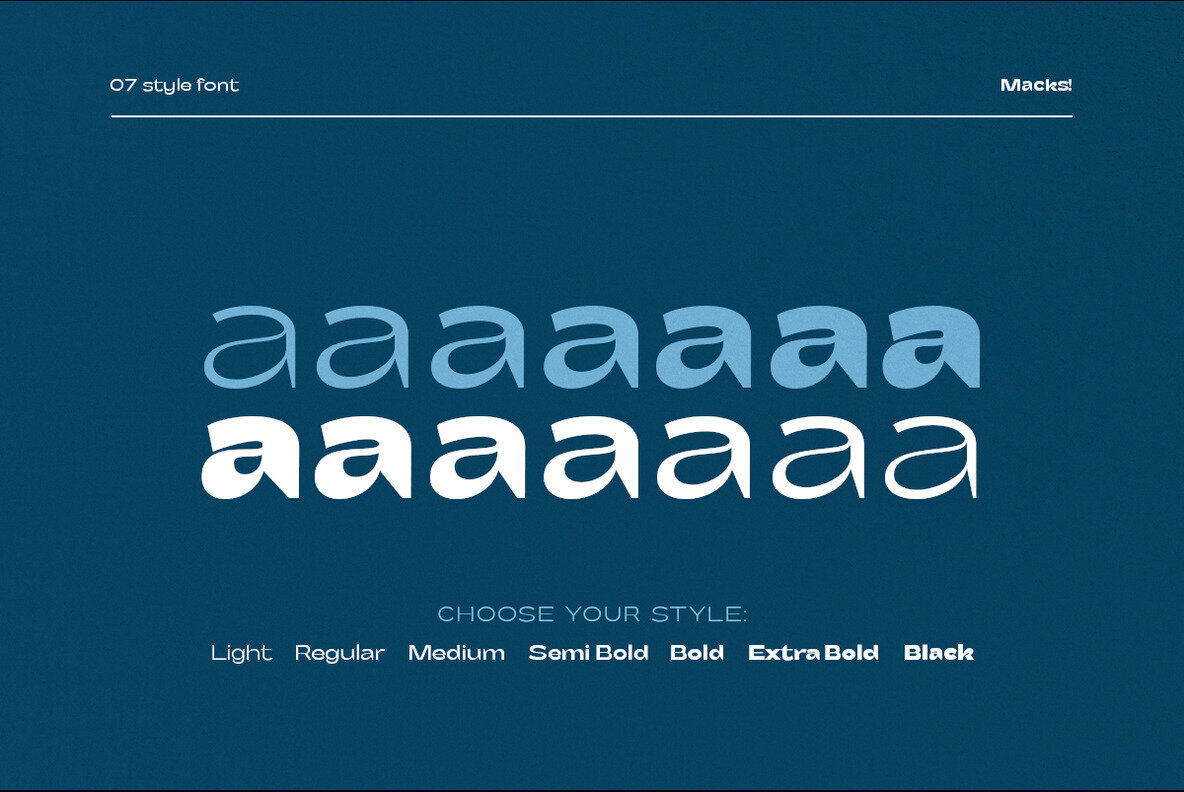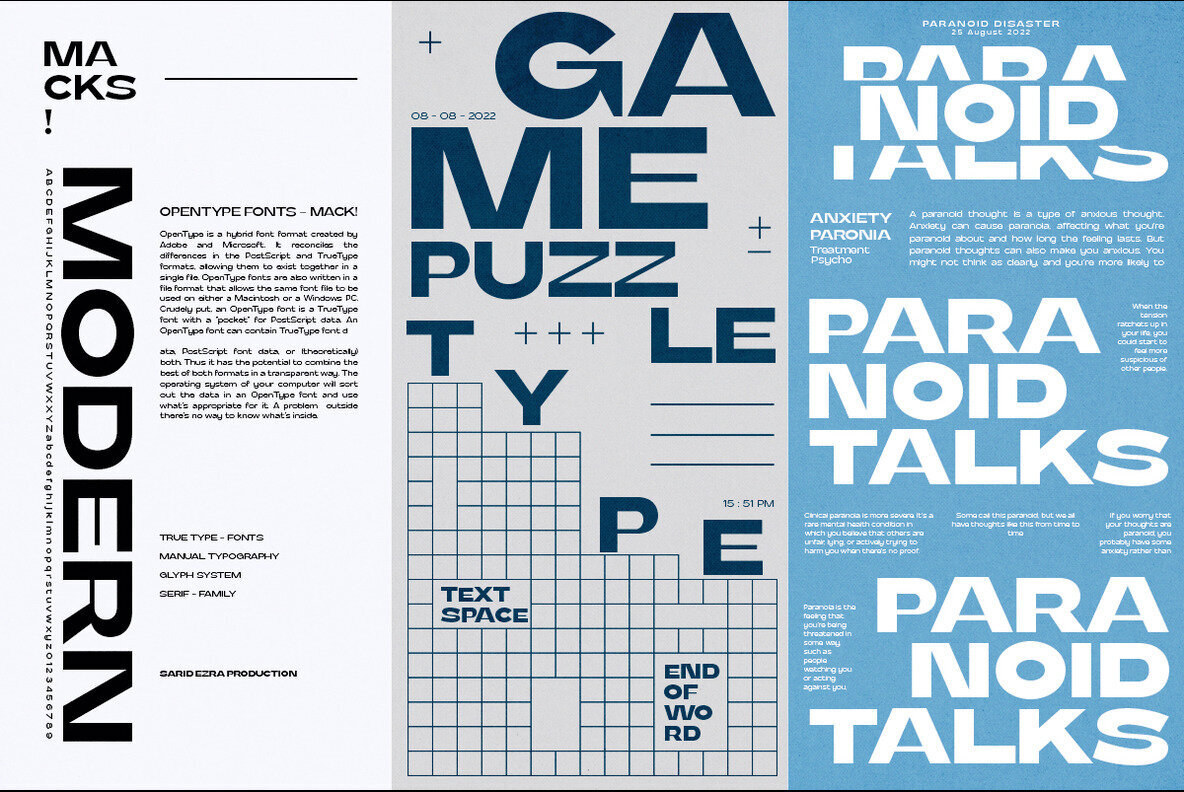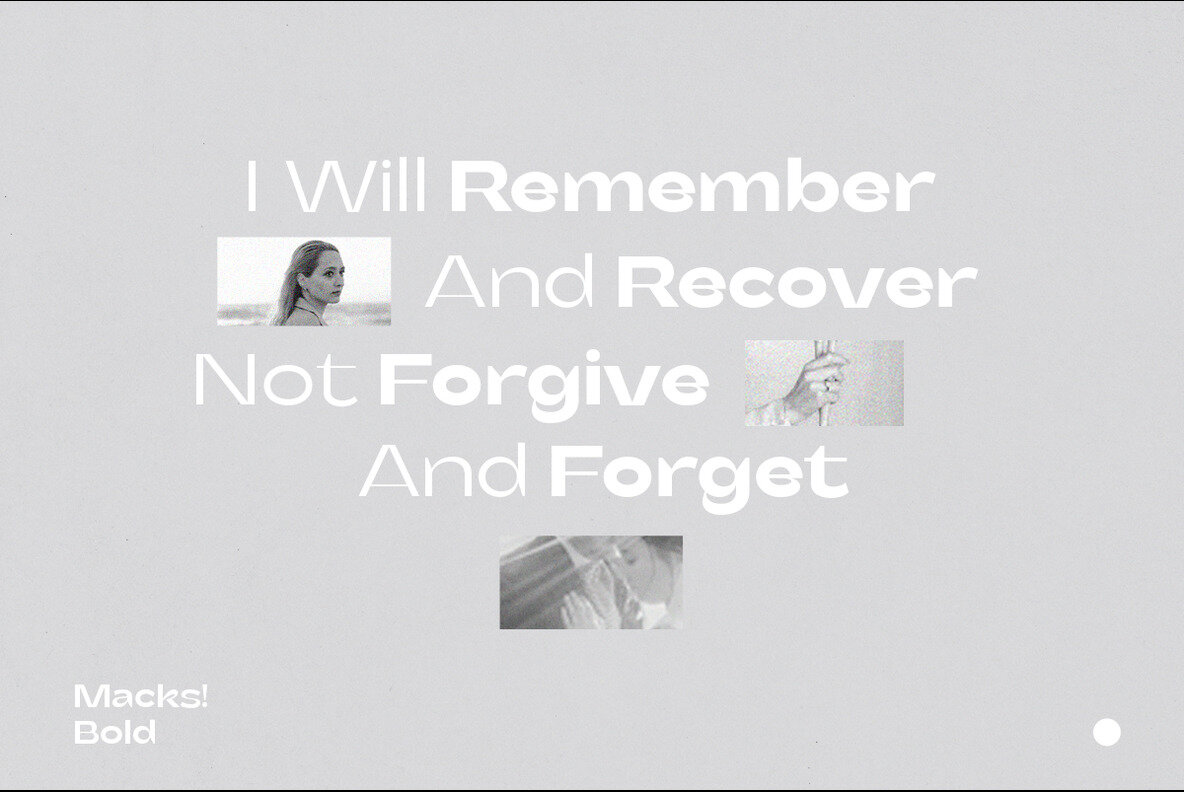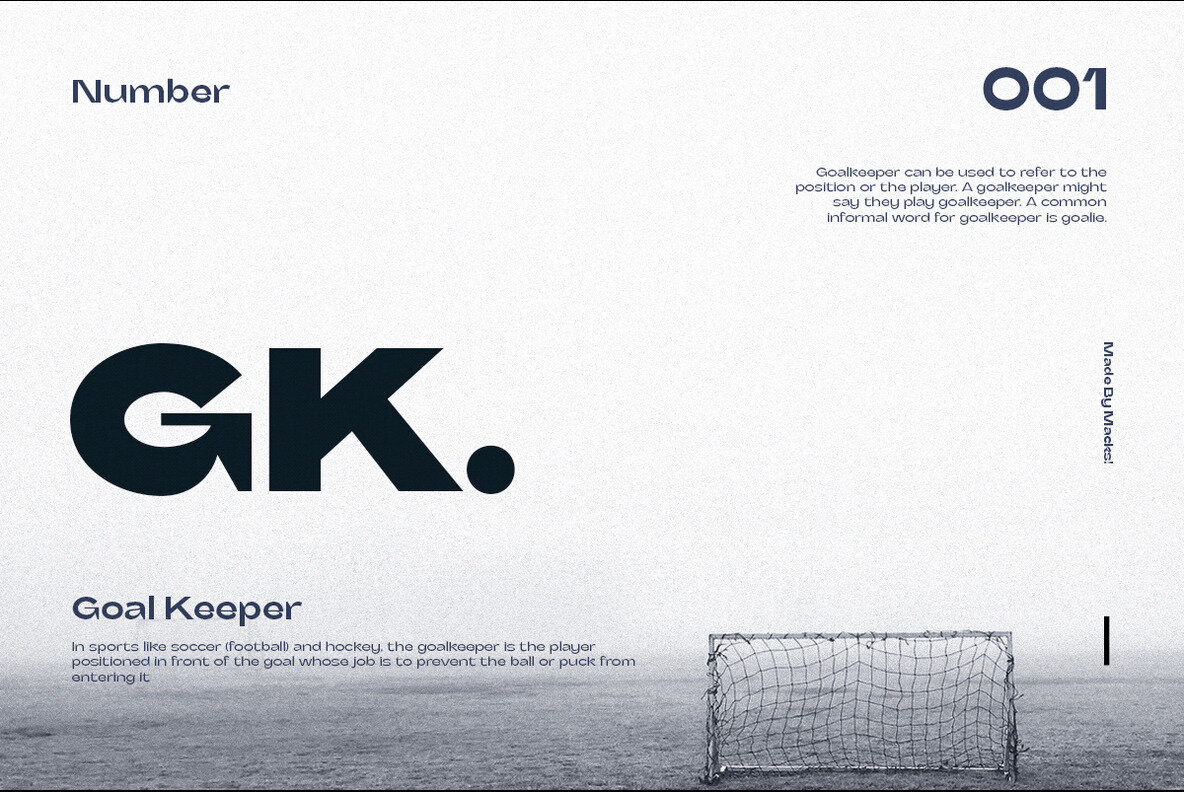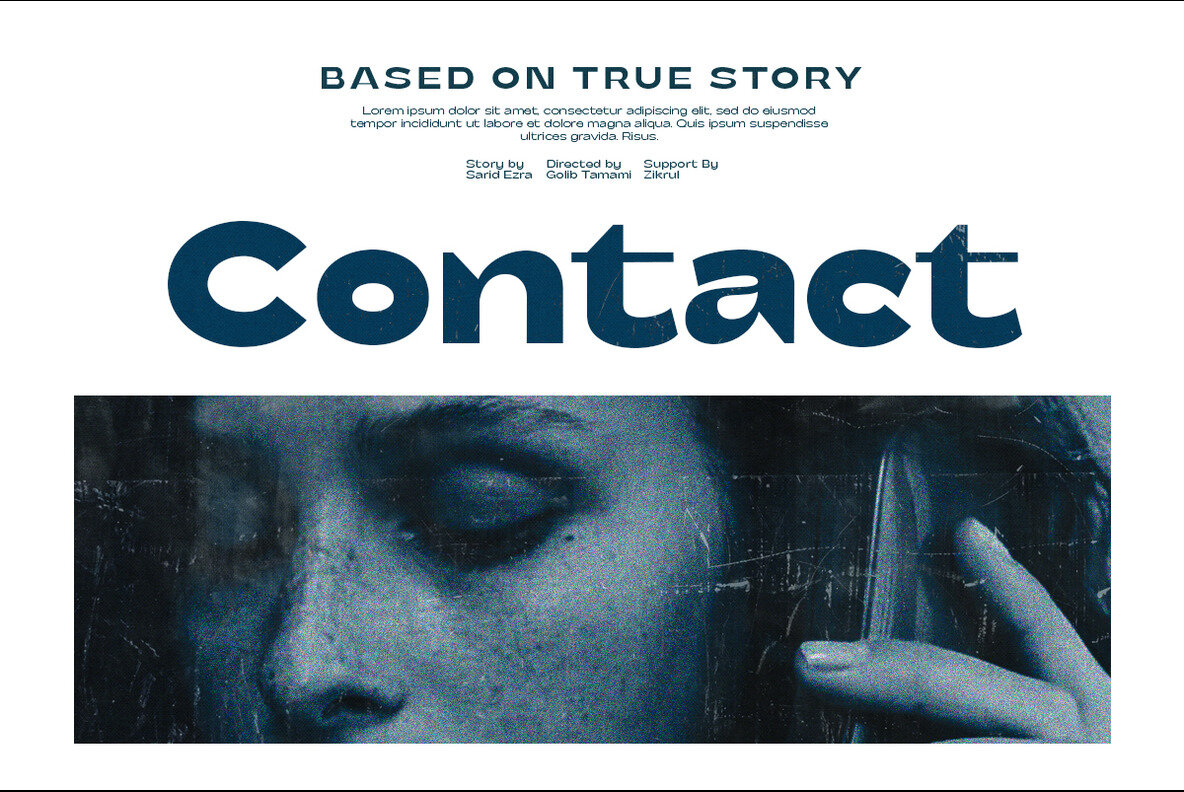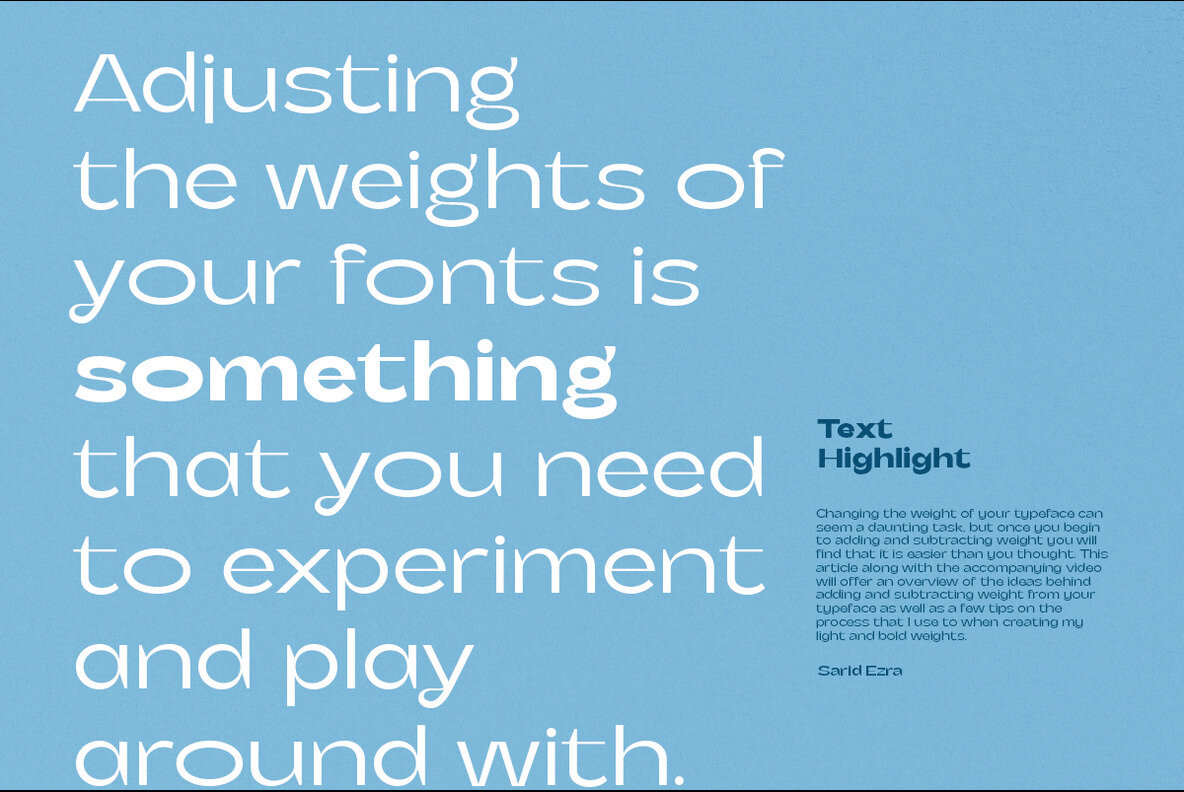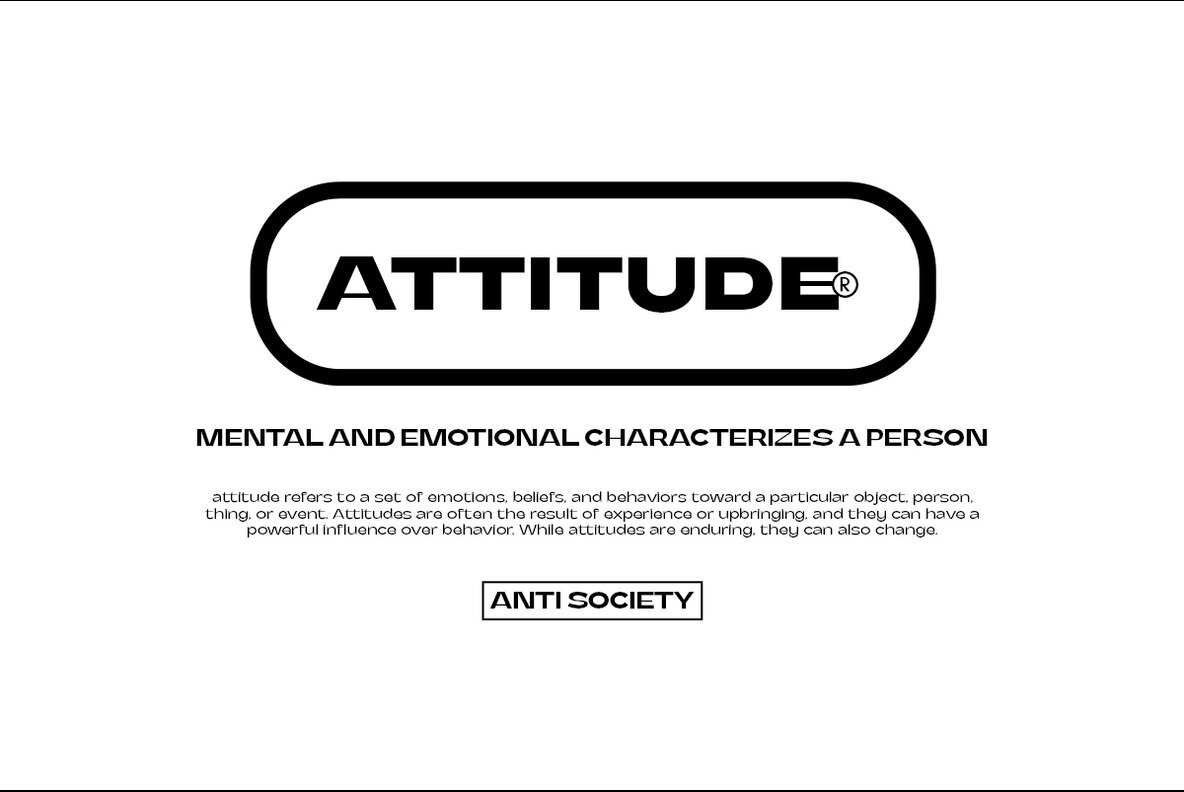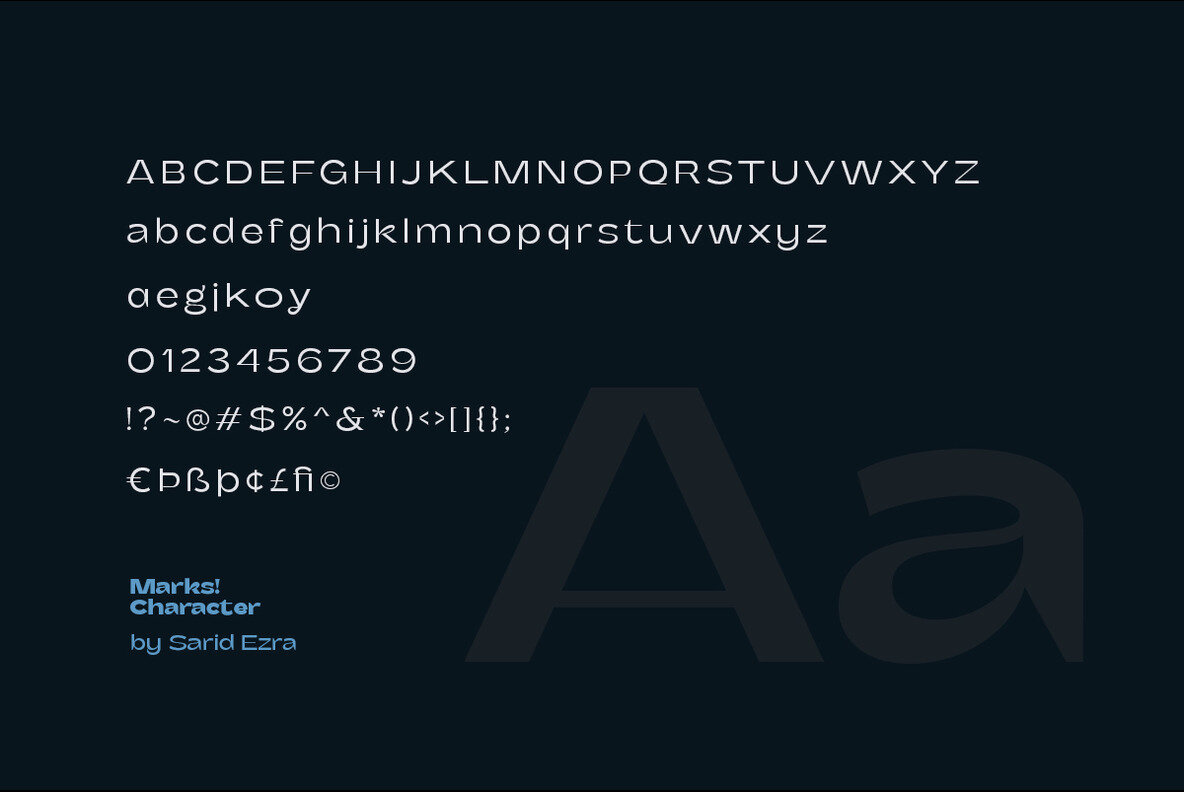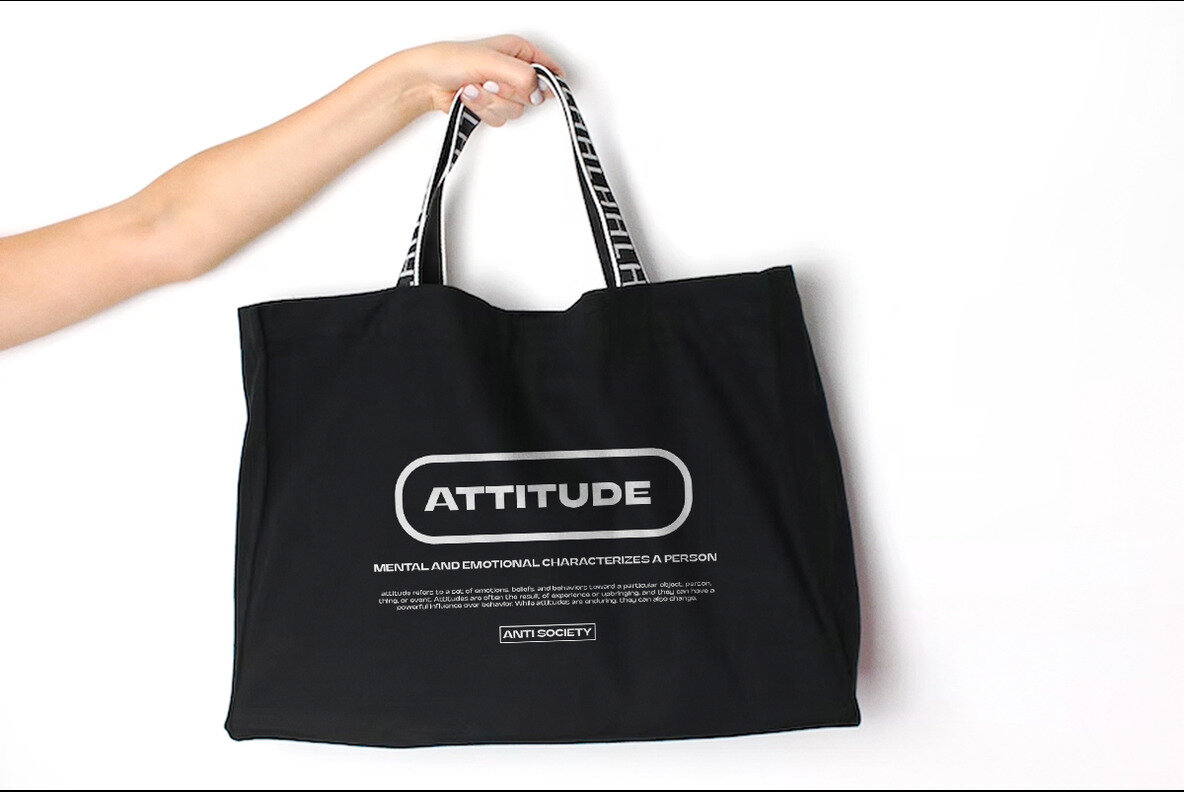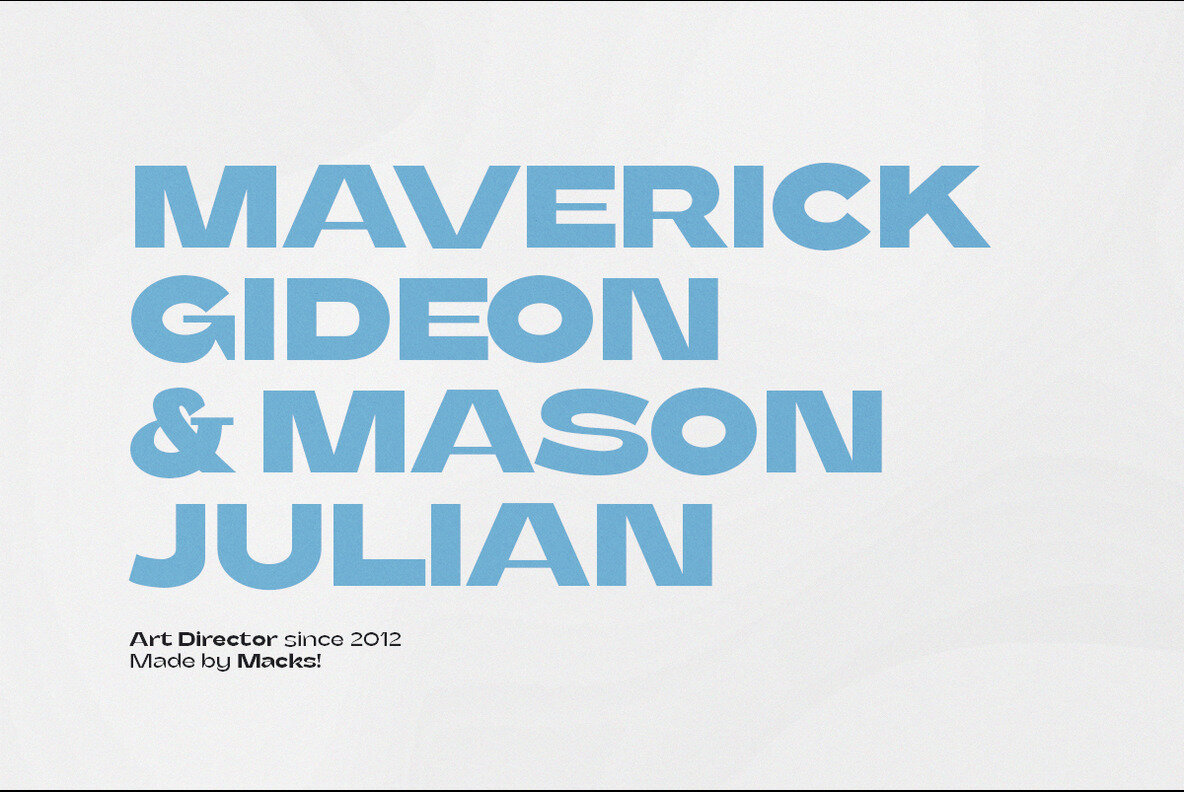
Macks Font
Mack's Sans is casual, modern Sans. The slightly wider shape and modern details make this font look more casual in any project or design. This font also includes alternatives for selected characters, making this font even more appealing. Can be used for titles, logos, quotes or couples in any font. This font is also multilingual! Macks Sans is a modern wide sans with stylish details making this font looks clean and suitable in any project and designs. With stylistic alternates for selected characters, making this font even more appealing. You can use it for a tittle, logo, quotes, and great for branding. This font also support multi language!